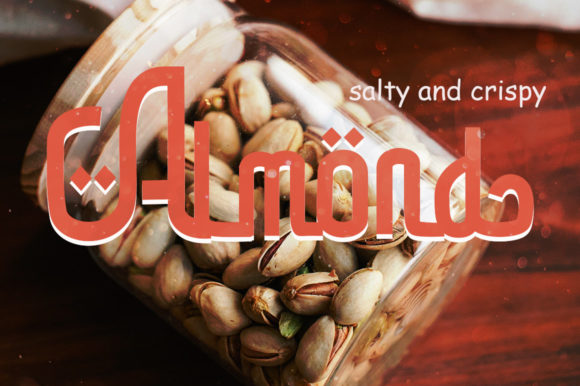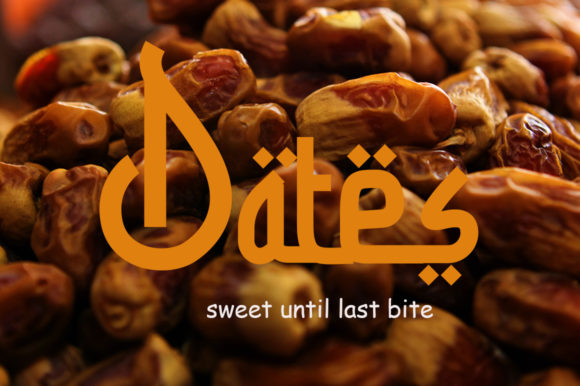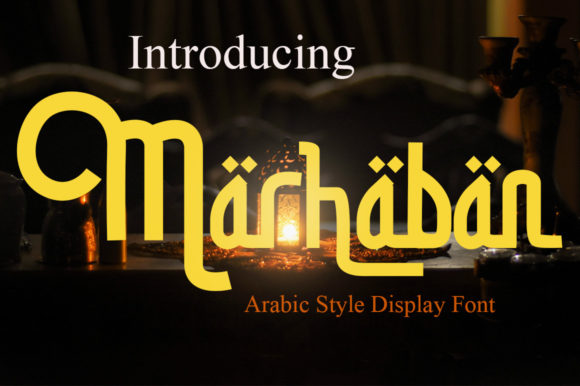
Marhaban Font
Marhaban is a unique Arabic-style handwritten script font. Script fonts like Marhaban are known for their fluidity and elegance, often mimicking the style of handwritten calligraphy. This makes them a popular choice for a variety of projects that require a touch of sophistication and personalization.
Whether you’re working on logos, branding projects, product packaging, quotes, posters, shopping bags, t-shirts, book covers, name cards, invitation cards, greeting cards, labels, photography, watermarks, special events, or any other project, Marhaban can add a beautiful script taste to your designs. Its Arabic-style nature makes it suitable for both modern and vintage aesthetics, providing a timeless appeal.
In the world of script fonts, Marhaban stands out for its unique style. It manages to strike a balance between being Arabic-style and handwritten, making it a great choice for projects that require a delicate touch. Despite its handwritten nature, Marhaban is robust enough to be used in a variety of applications, from small labels to large signage.
In addition to its aesthetic appeal, Marhaban is also practical. It’s easy to read, which is an important consideration when choosing a script font. Despite its beautiful, handwritten style, Marhaban remains legible even at smaller sizes, making it a reliable choice for a wide range of applications.
One of the standout features of Marhaban, and indeed many script fonts, is its use of PUA encoding. PUA encoding means that you can access all of the glyphs and swashes with ease, enhancing the versatility and attractiveness of the font.
In conclusion, Marhaban is more than just an Arabic-style handwritten script font. It’s a versatile design tool that can bring a unique, personal touch to your projects. Whether you’re a seasoned designer or just starting out, Marhaban is a script font worth considering. Its combination of style, versatility, and legibility make it a standout choice in the world of script fonts. So, if you’re looking for a script font that can add a beautiful script taste to your projects, Marhaban might just be the perfect fit.